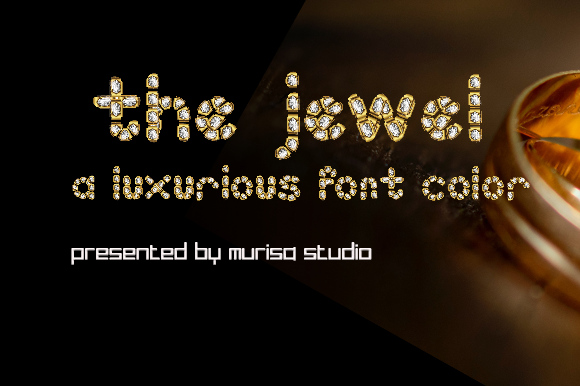
Immerse yourself in the realm of creativity and expression with The Jewel Font, a color font family that radiates a captivating, luxurious charm. Designed by murisa.studio, this font collection is a symphony of colors, unlocking new horizons for your creative endeavors. Whether crafting text logos, designing posters, or adding a touch of elegance to your digital projects, The Jewel Font is your gateway to captivating designs that speak volumes.
Experience the transformative power of color as you unleash your creativity. The Jewel Font's vibrant hues bring life to your words, inviting viewers to embark on a visual journey like no other. From soft pastels to bold, eye-catching shades, this font family offers a kaleidoscope of colors to suit every mood, theme, and design concept.
With The Jewel Font at your fingertips, you'll discover a font collection that's not just visually stunning but also incredibly versatile. Its meticulously crafted characters exude sophistication, lending an air of elegance to any project. Whether you're designing for print or digital media, The Jewel Font effortlessly adapts to your creative vision, ensuring your designs leave a lasting impression.
The Jewel Font is more than just a collection of letters; it's an invitation to explore the depths of your imagination. Each character is a gem, waiting to be discovered and showcased in your creative masterpieces. Let your designs shine brighter than ever before as you harness the power of color and typography.
Unleash your creativity and embark on a colorful adventure with The Jewel Font. Elevate your designs to new heights, captivate your audience, and leave a lasting impression. Experience the magic of color fonts and elevate your projects to new heights. Your creations deserve nothing less than the brilliance of The Jewel Font.